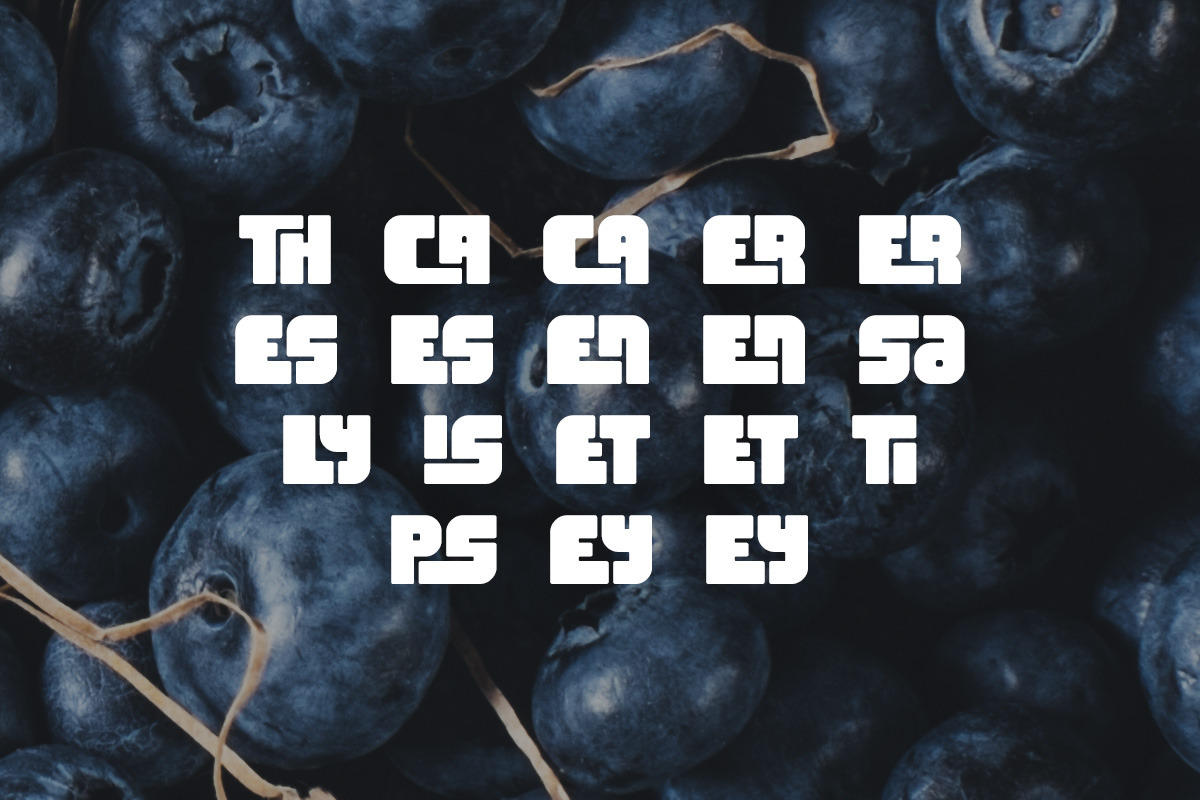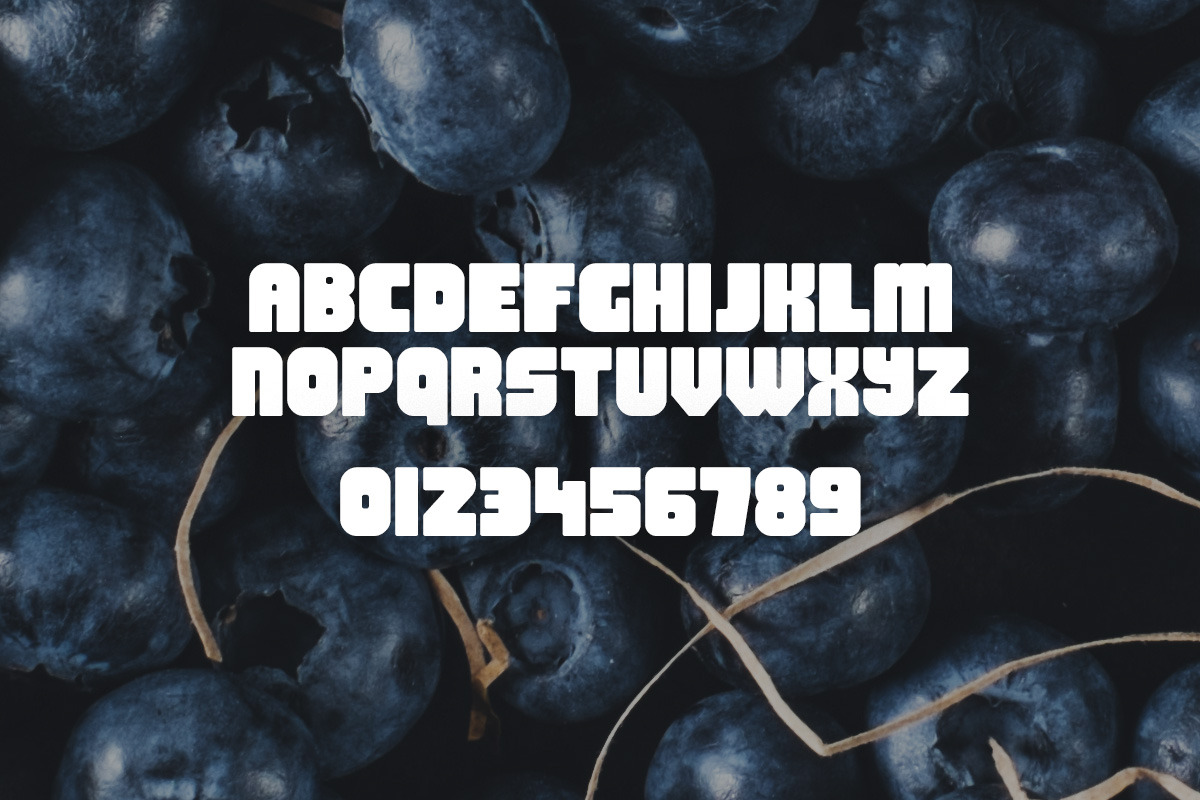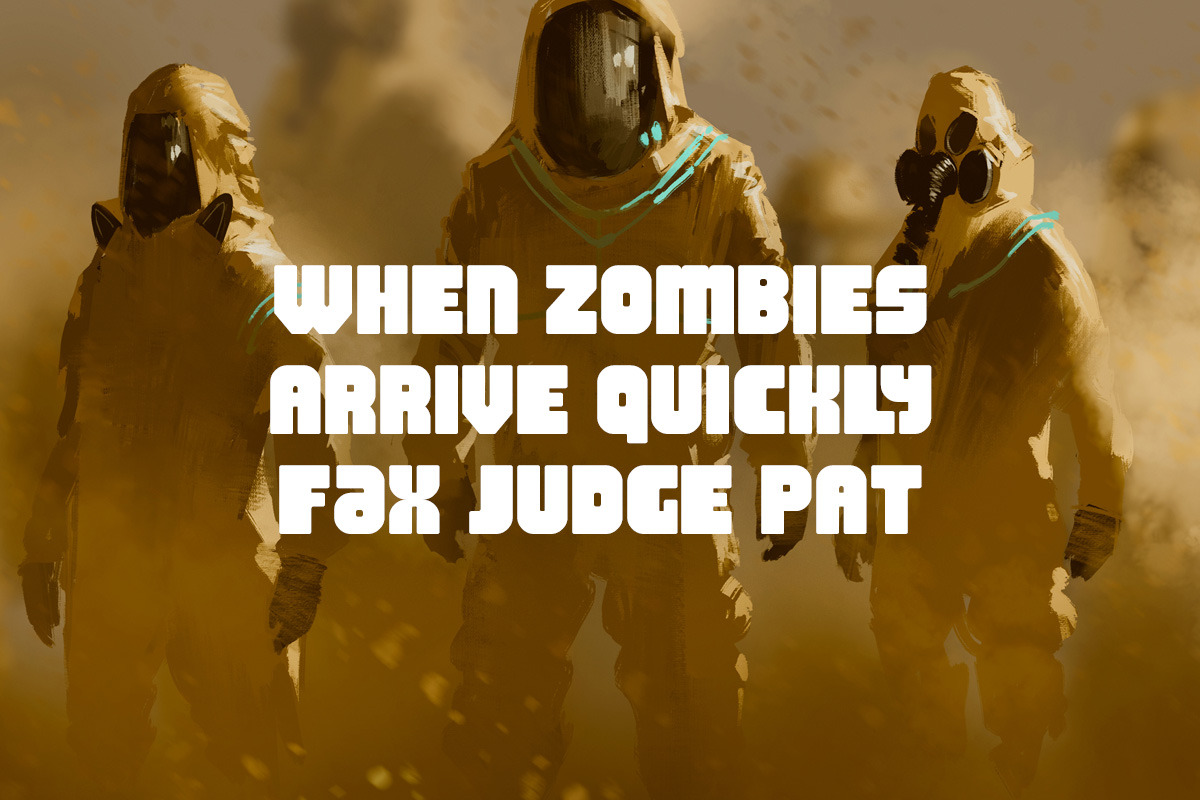
Thiket Typeface
Thiket Typeface by Tugcu Design Co. is a font selected for branding, posters, packaging, typography.
- It includes regular and italic versions.
- Thiket is a personable font with uppercase letters, custom glyphs, numerals and punctuation.
Why Thiket Typeface is worth a look
Thiket Typeface by Tugcu Design Co. fits naturally into Branding, posters, packaging, typography.